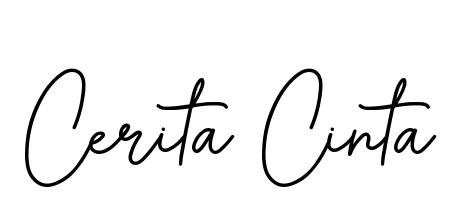
Cerita Cinta
By AMINMARIO IBRAHIMA
Cerita Cinta, a flowing script font, whispers tales of romance. Its elegant curves and delicate strokes evoke a sense of intimacy and warmth, perfect for expressing heartfelt emotions. The slightly whimsical style lends itself to wedding invitations, love letters, or any design needing a touch of romantic charm.